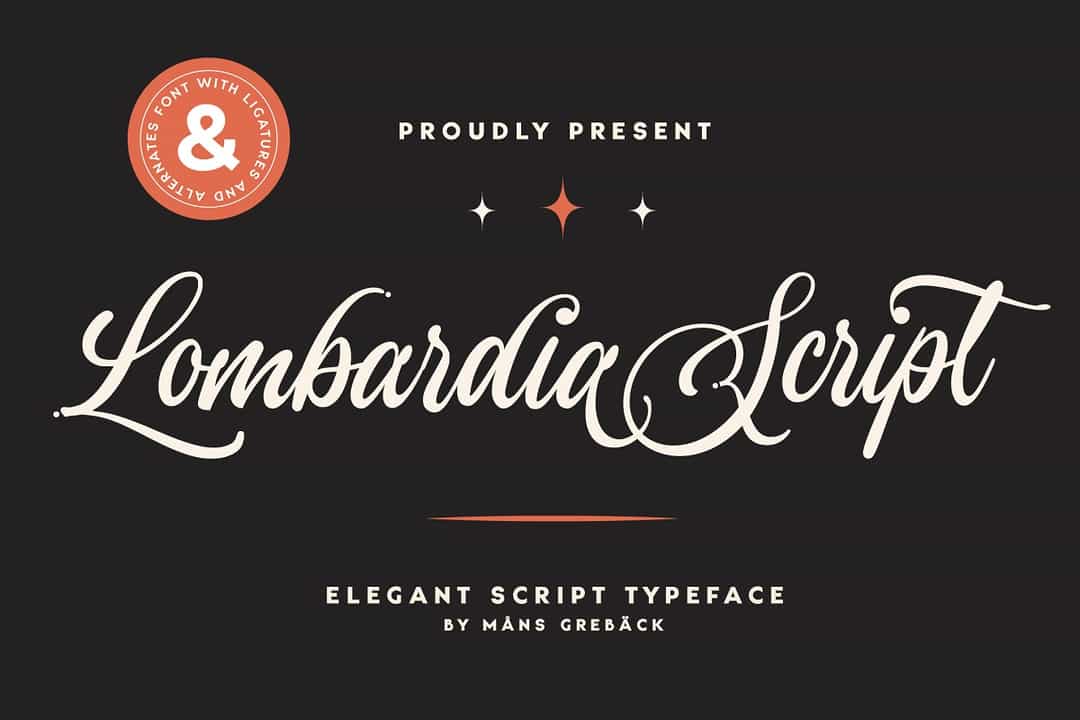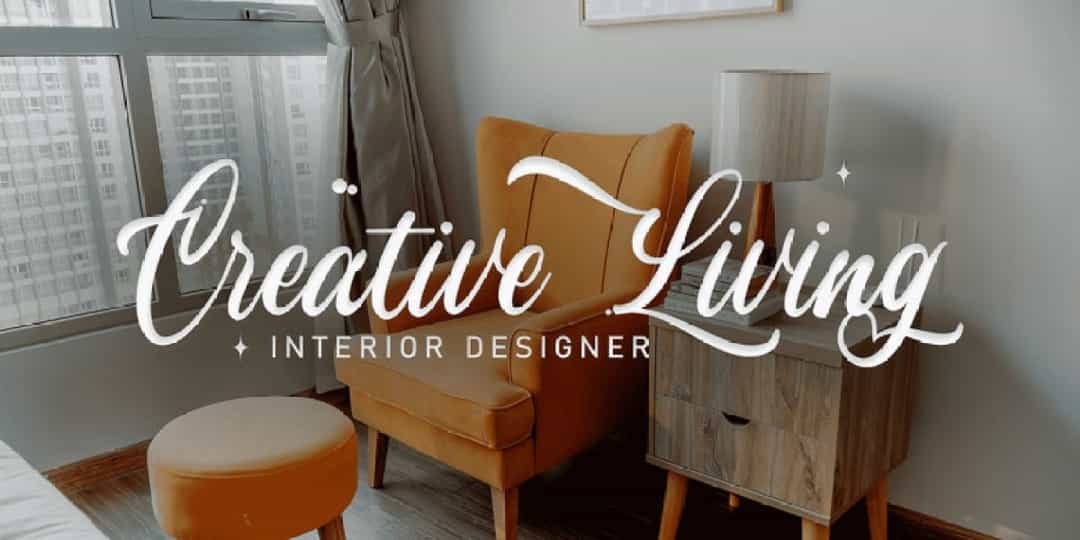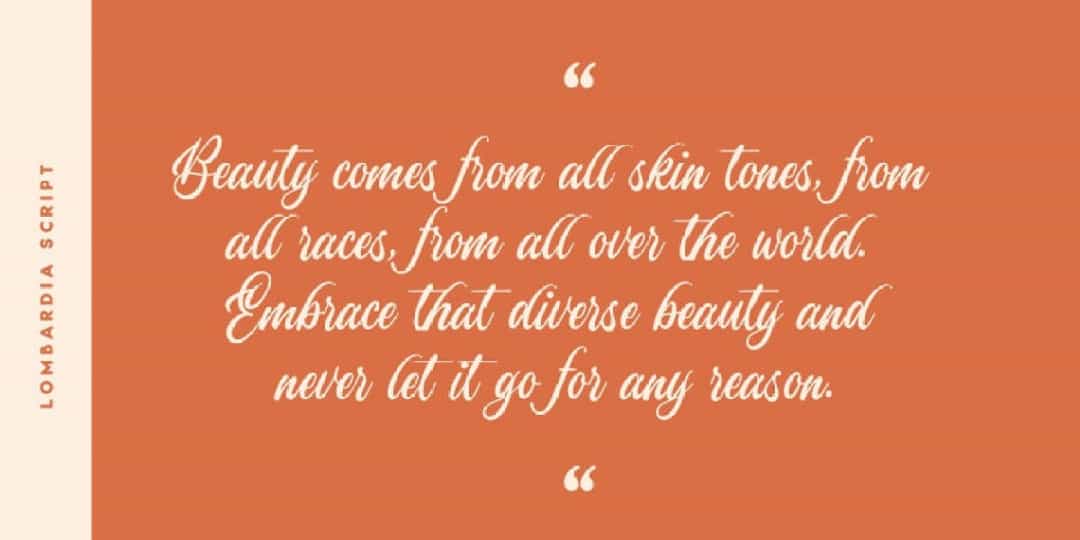
Lombardia Script is an exquisite calligraphy typeface with striking beauty and grace, ideal for use in logotypes, tattoos and designs which require signature qualities. Crafted using ancient letter forms from antiquity as inspiration, the font was developed using this ancient art of writing at its core.